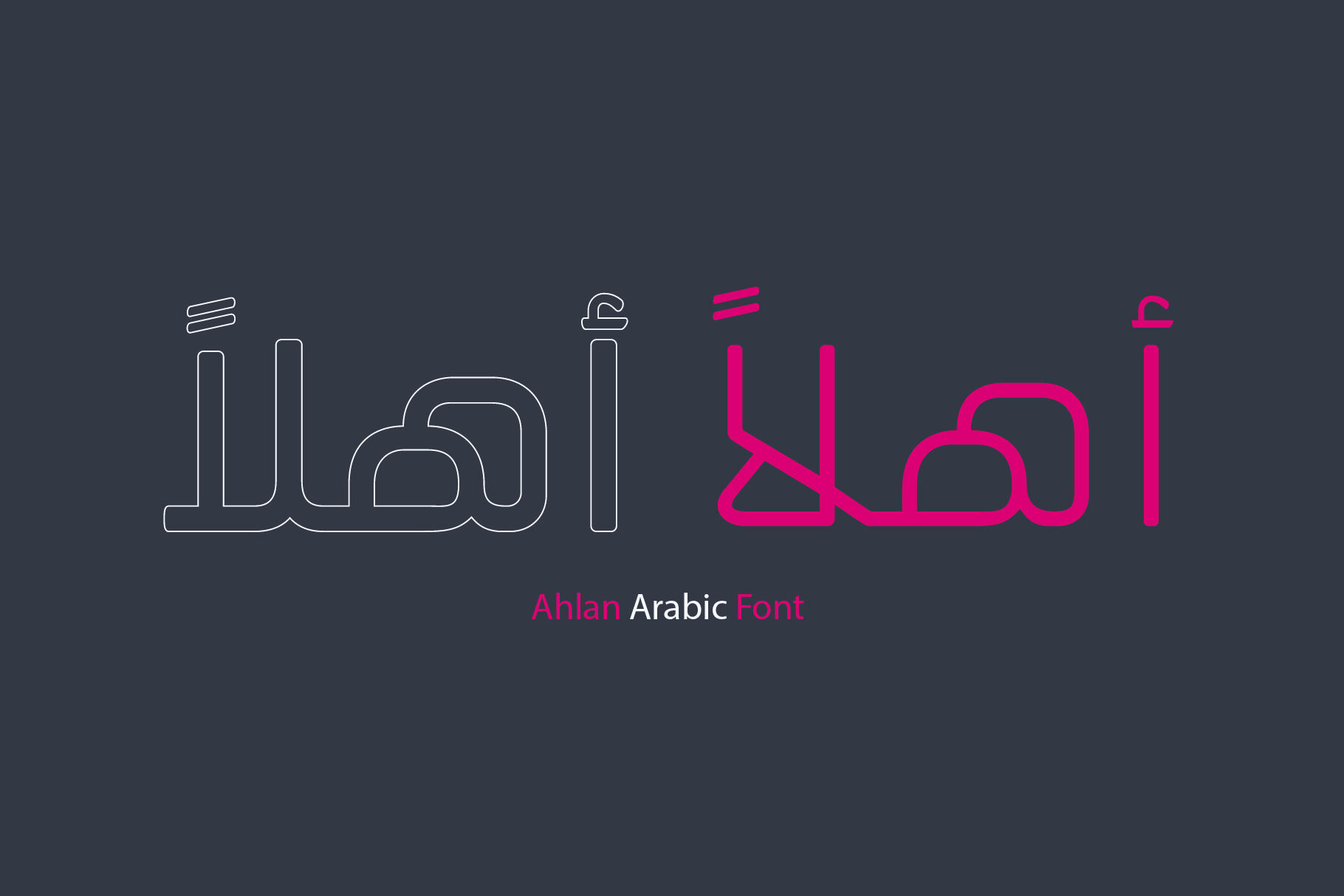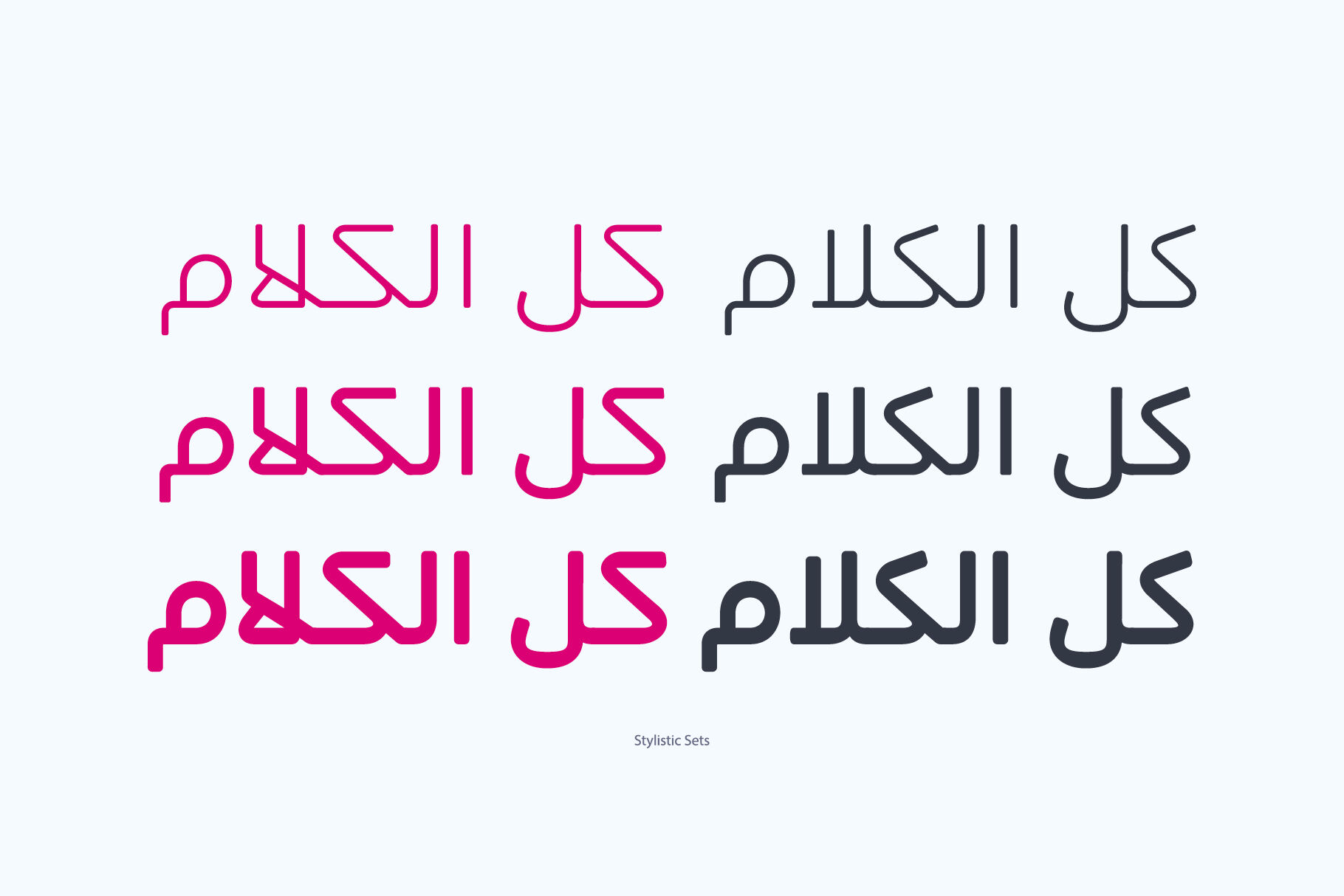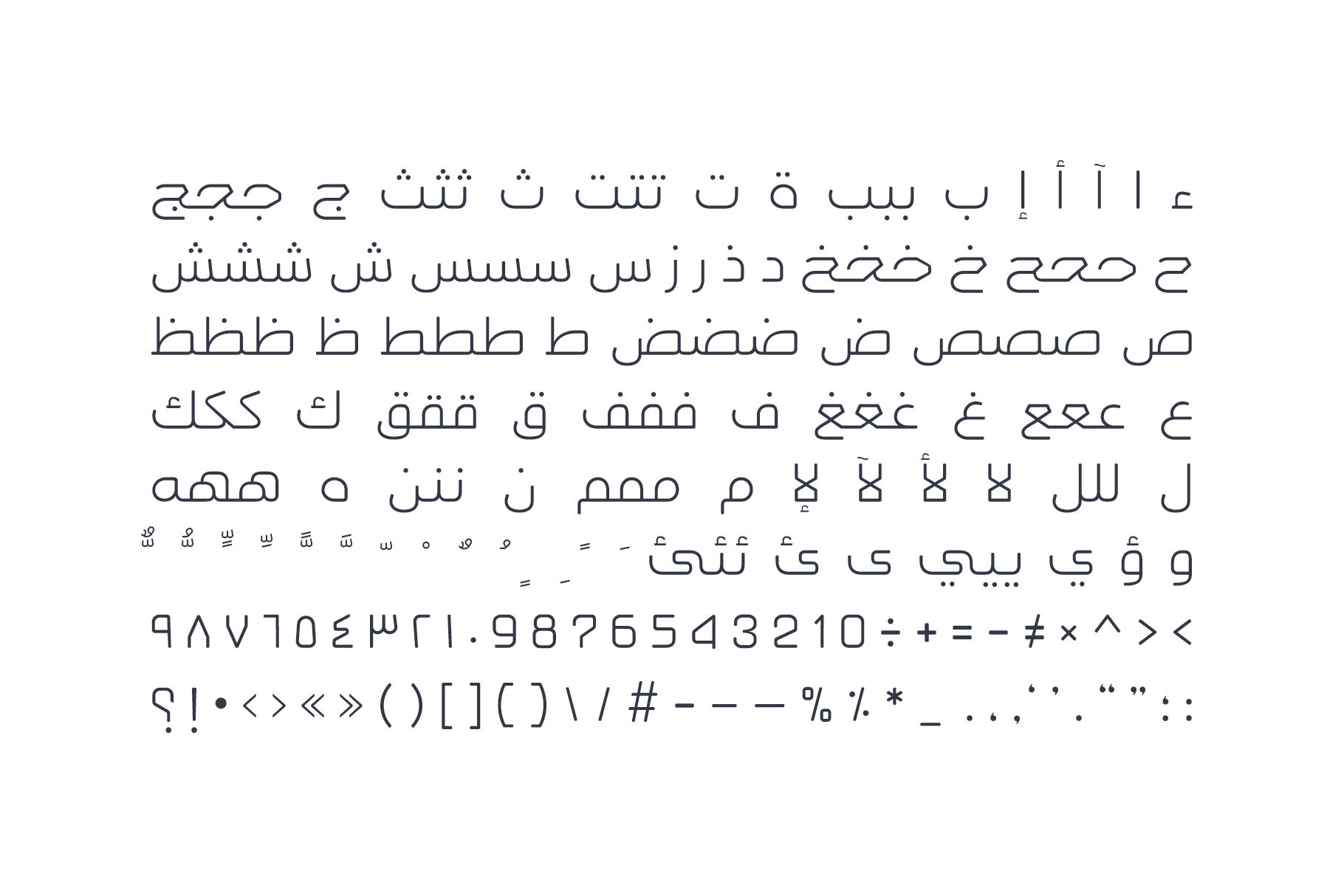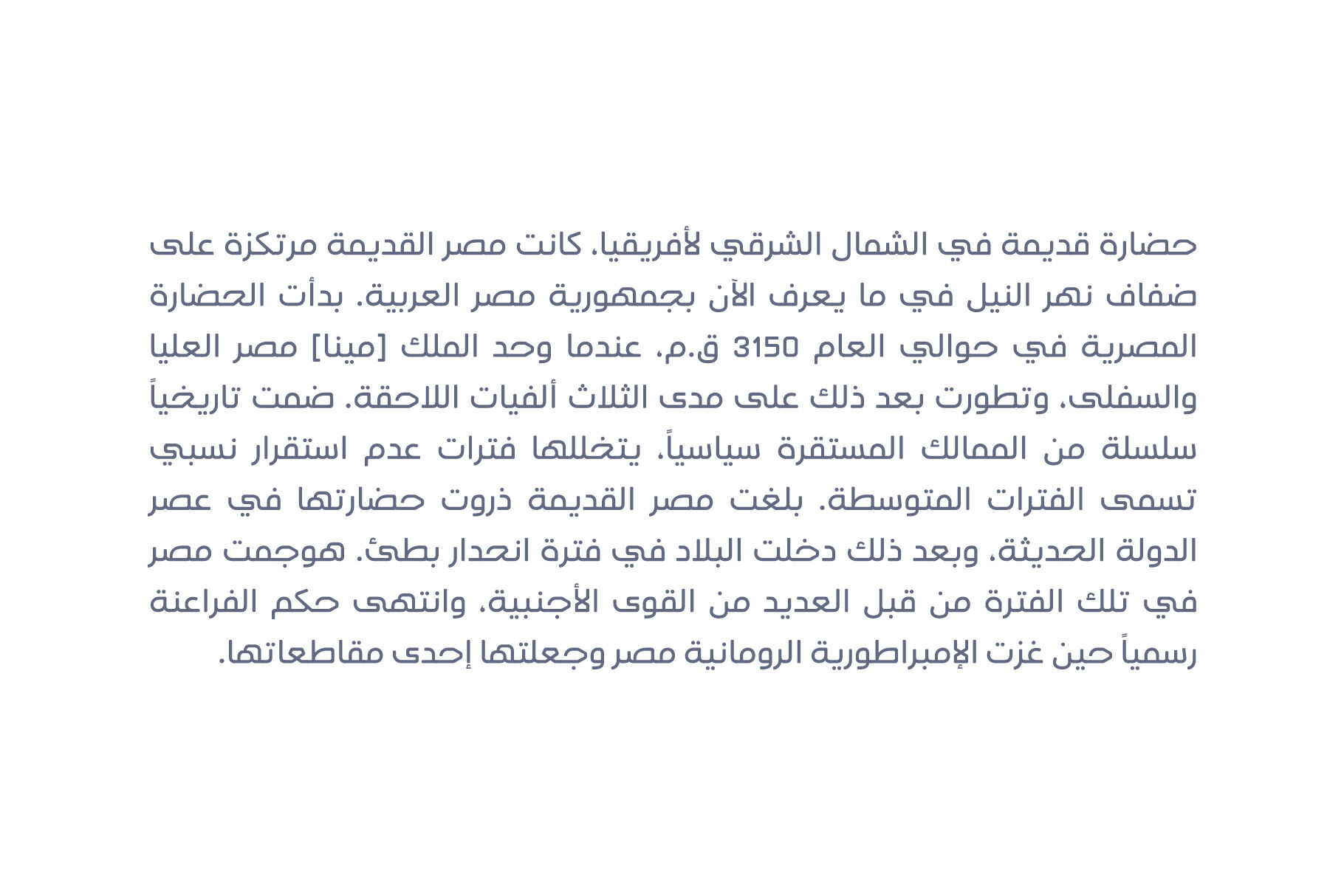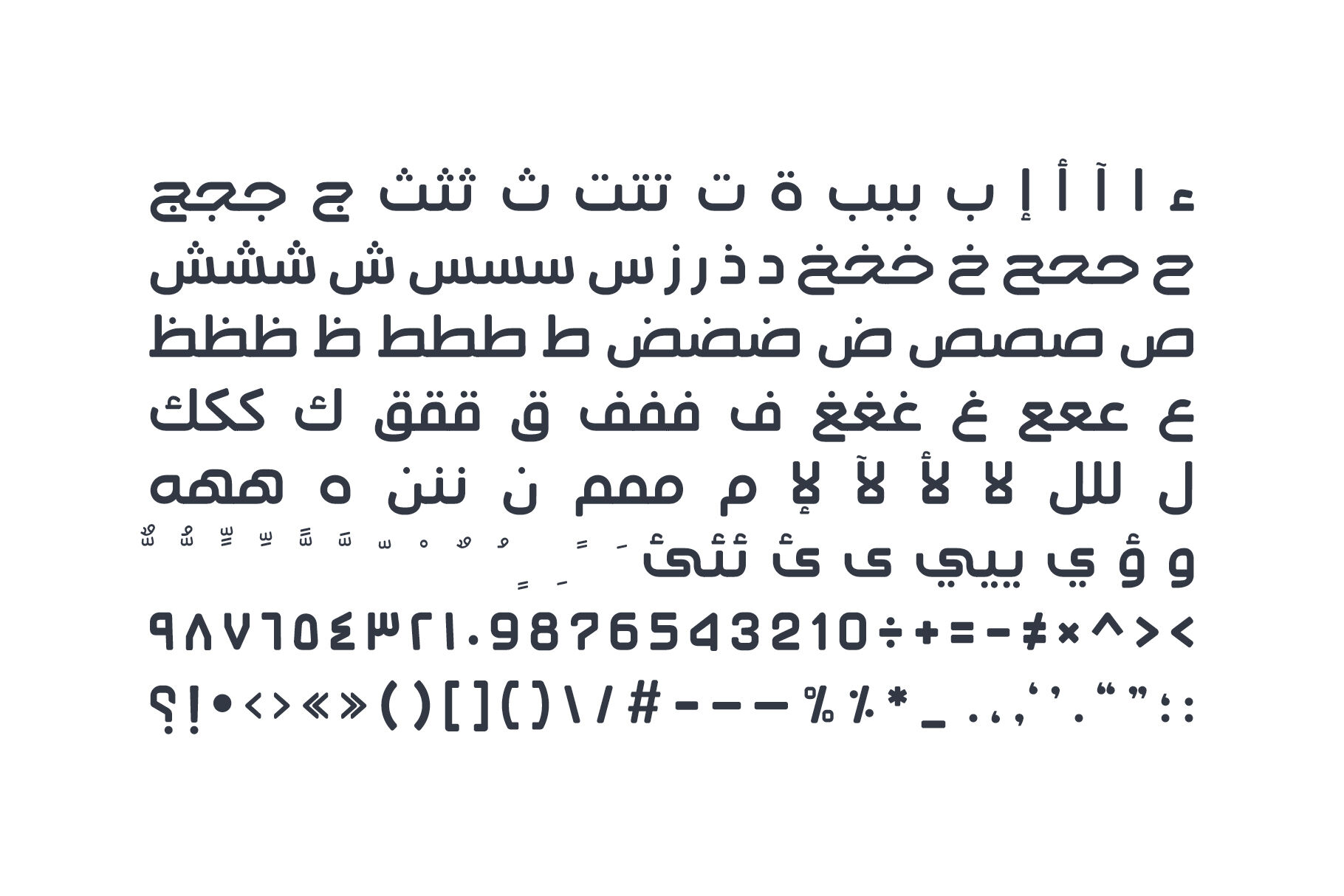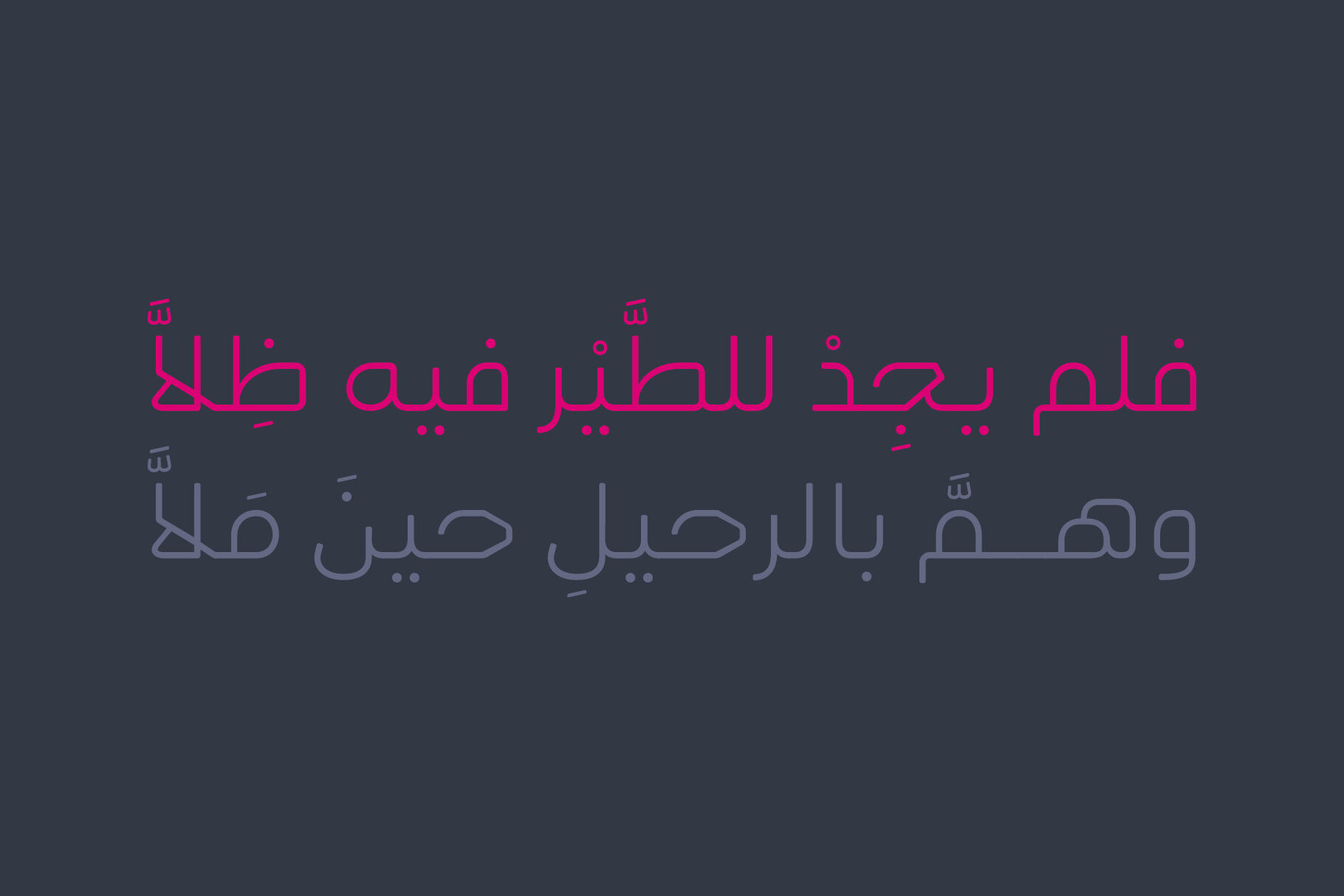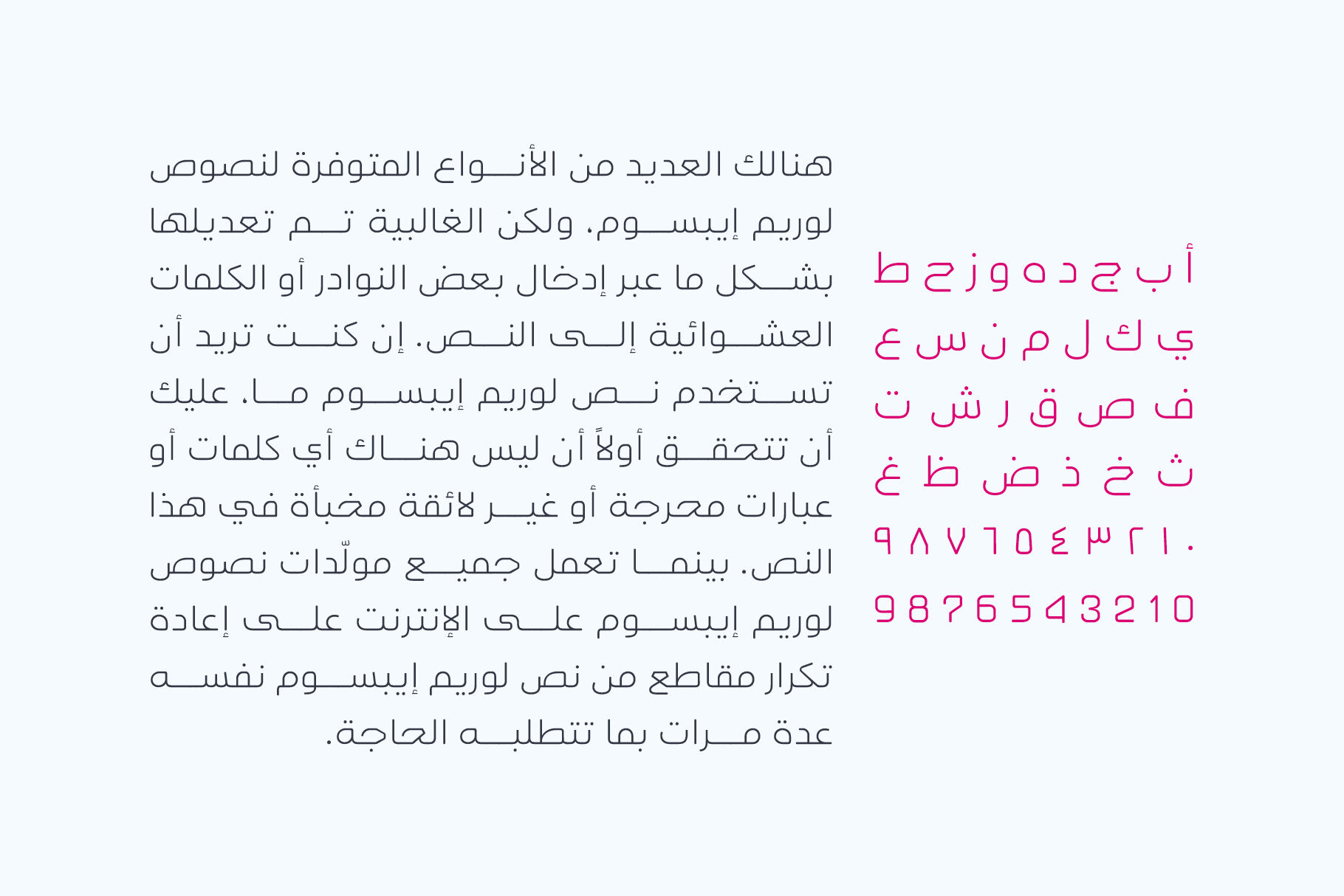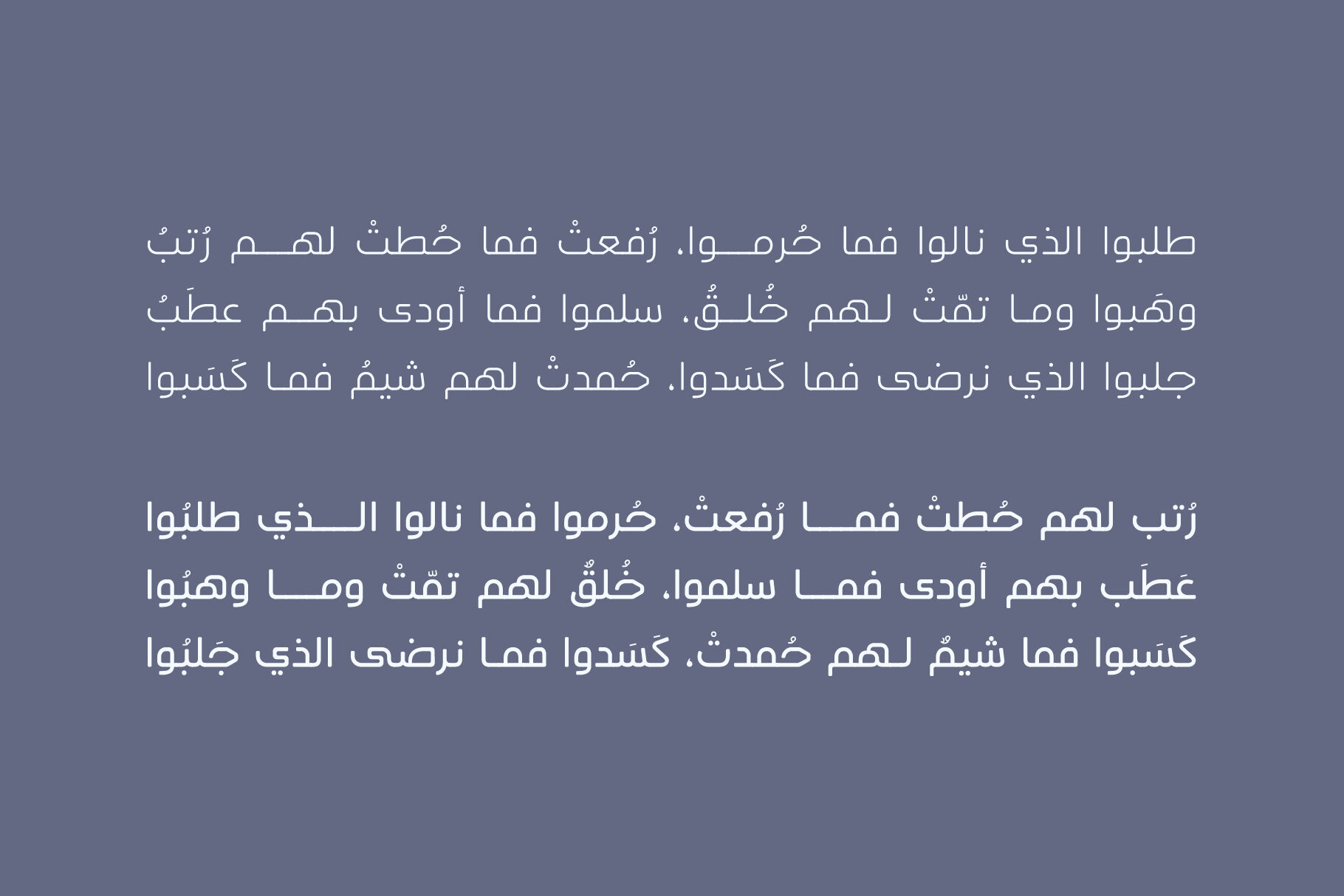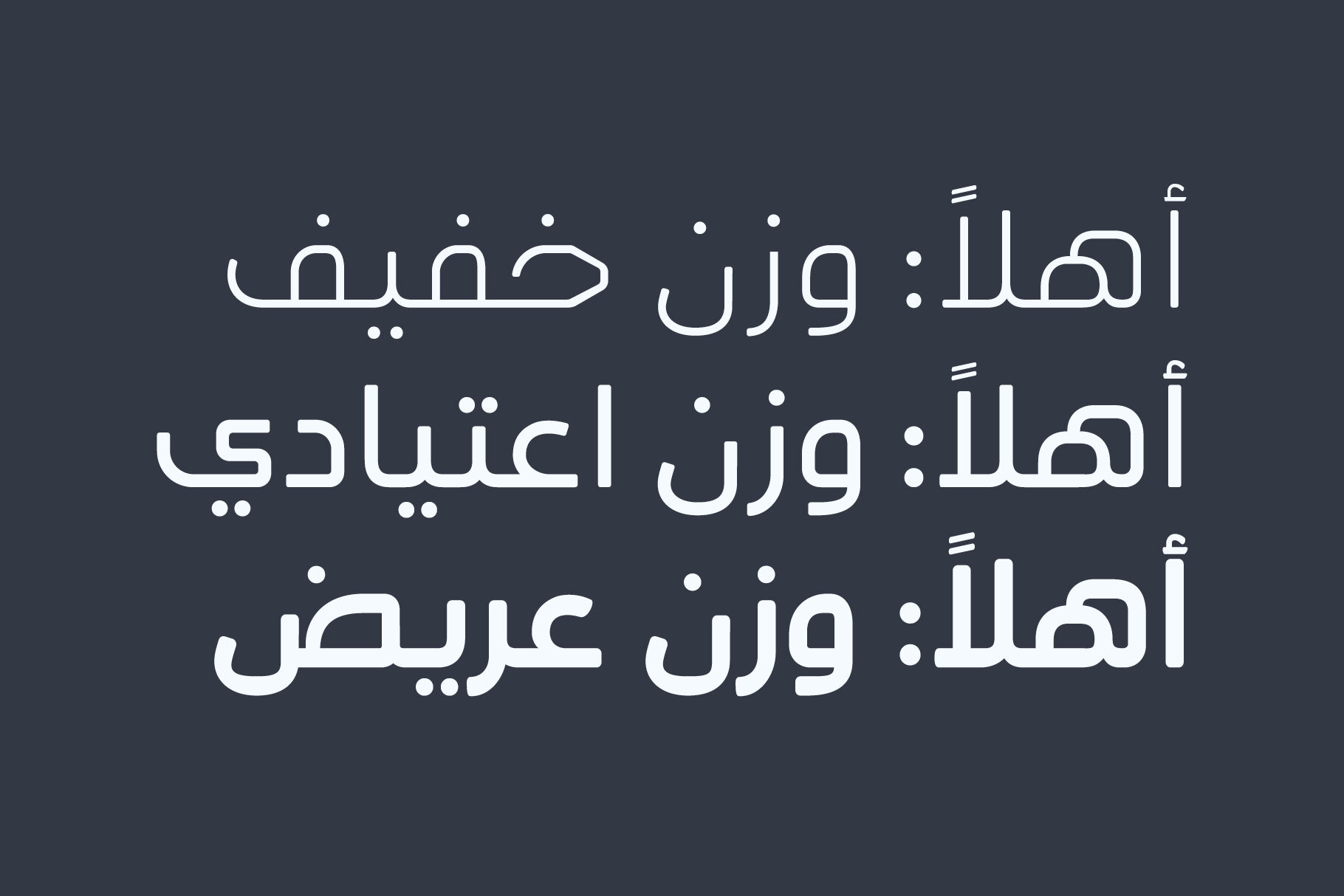
Ahlan - Arabic Typeface
Ahlan is an Arabic typeface with a geometric anatomy, soft corners and smooth terminals. The typeface consists of three weights; light, regular and bold and it suits various range of applications including advertising and print media.